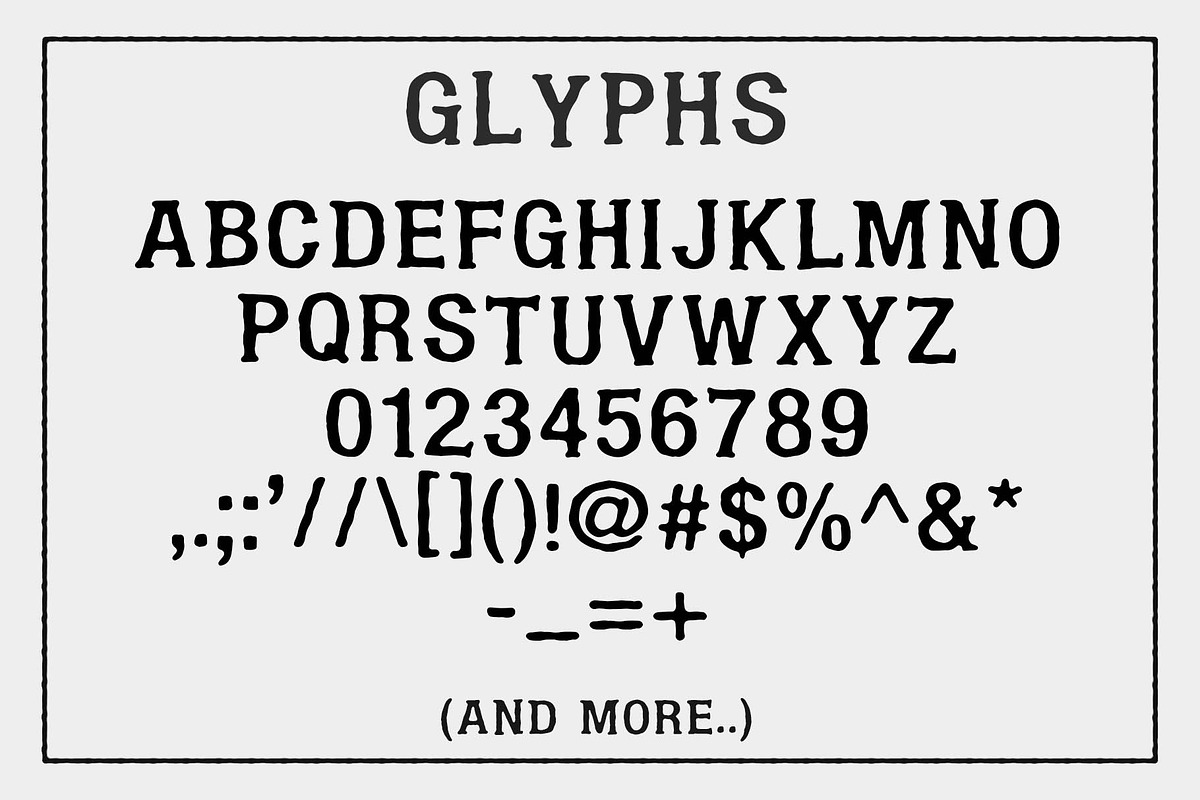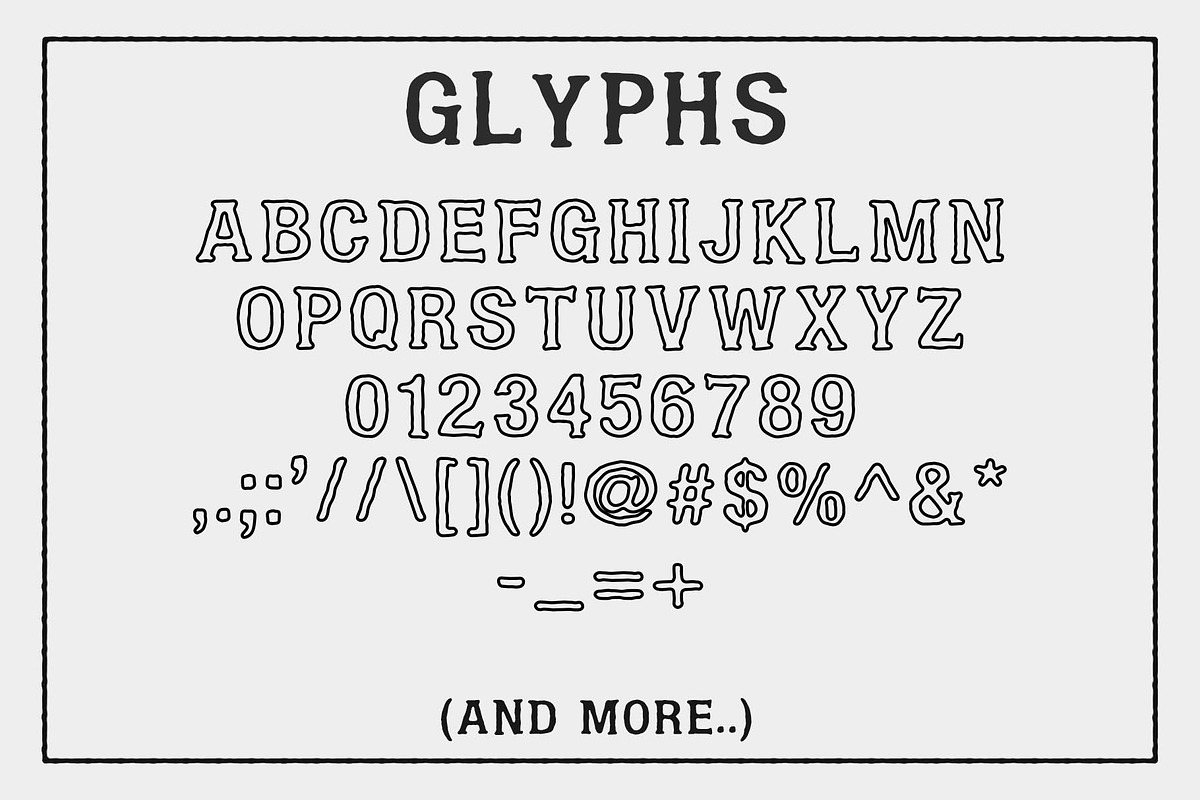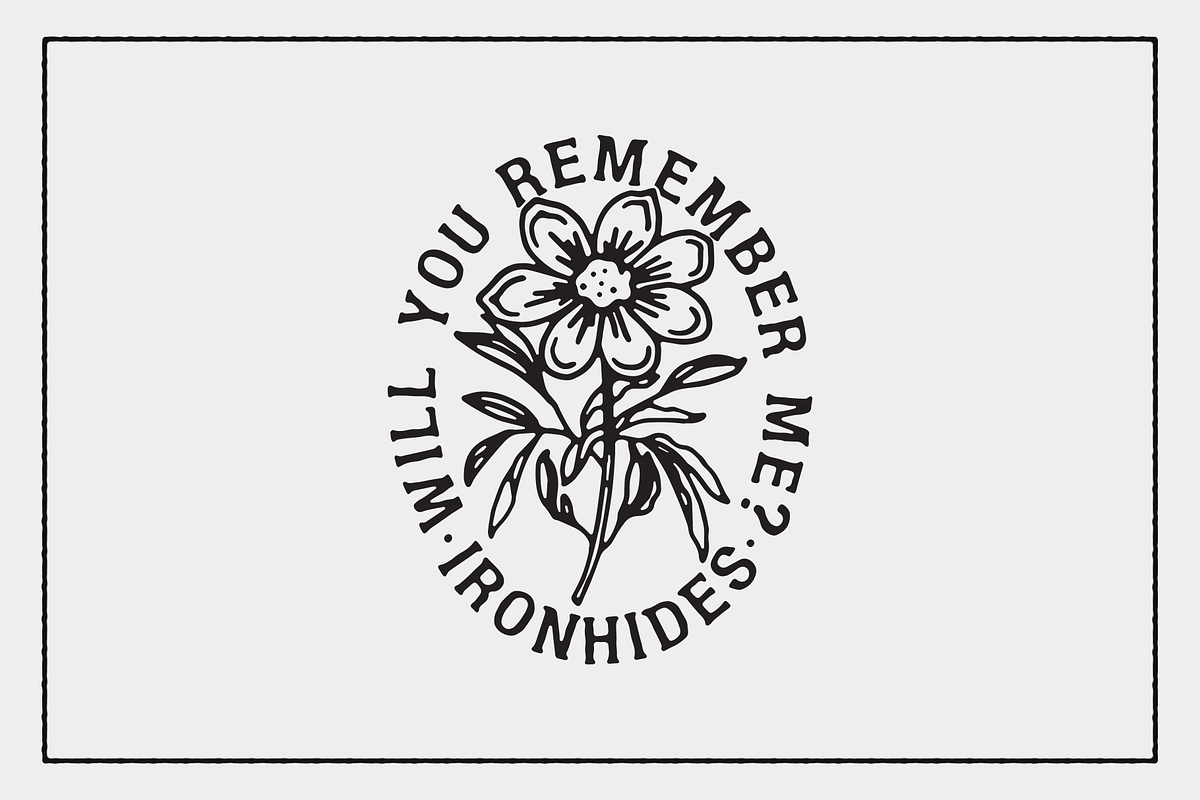
FORGED - Font and Illustration Pack
My new font, FORGED is finally here!
This font is hand drawn and inspired by vintage lettering. It includes both a solid and outline version. WIth this font, I've also included a batch of hand-drawn, 100% vector illustrations that compliment the font and make great compositions. Check out a few examples in the preview images!
- It includes both a solid and outline version.
- WIth this font, I've also included a batch of hand-drawn, 100% vector illustrations that compliment the font and make great compositions.